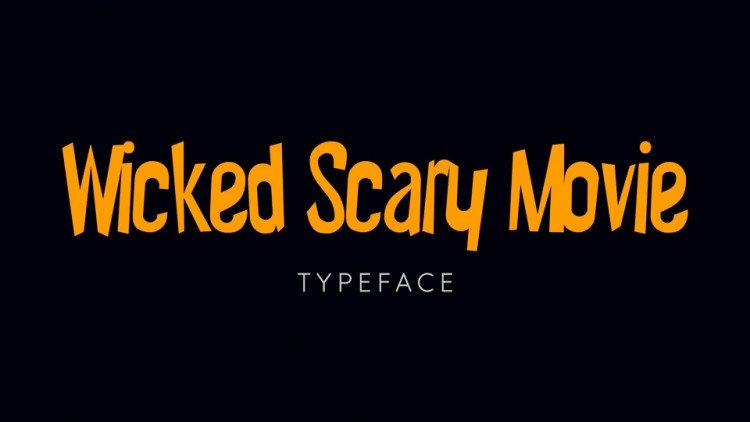
Wicked Scary Movie Font
Wicked Scary Movie is a playful cartoon font inspired by 1950s movie popcorn boxes.
It contains a full set of uppercase and lowercase letters, numbers, symbols.
Wicked Scary Movie font is great for posters, headlines, kids product, party designs and other fun projects.